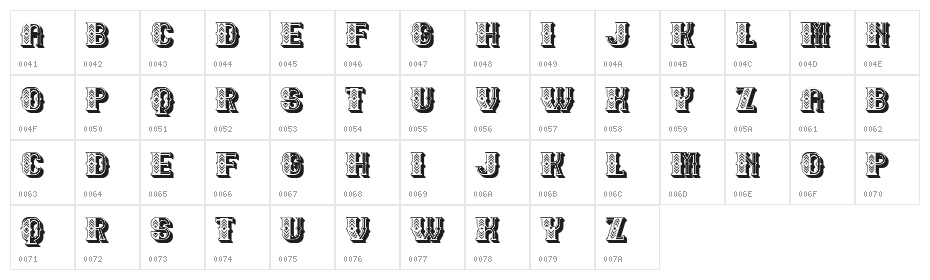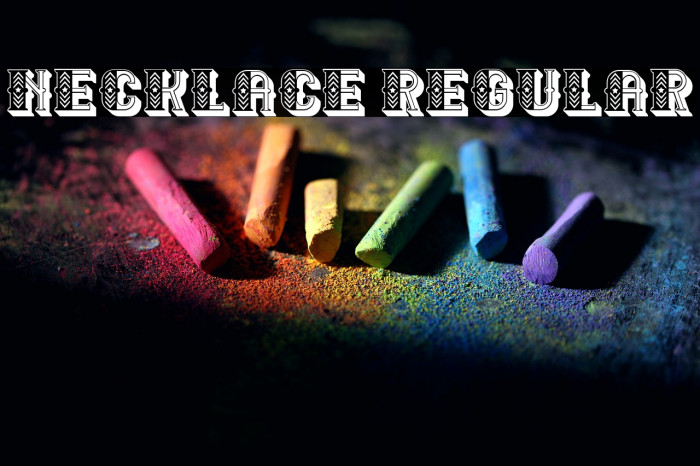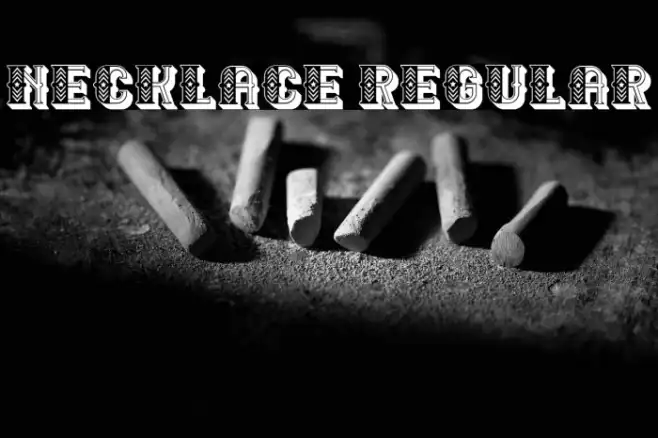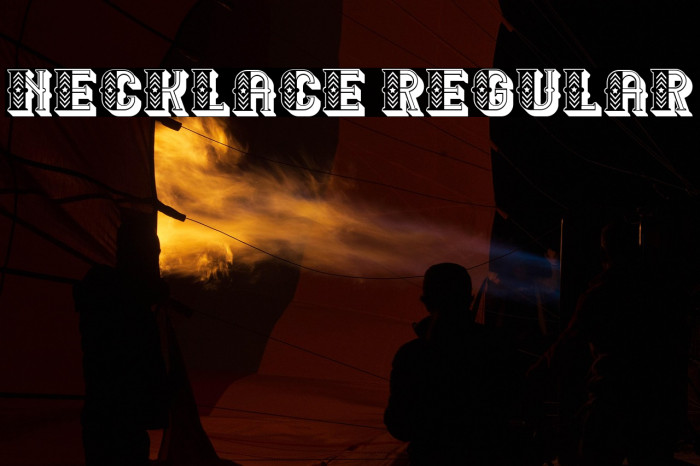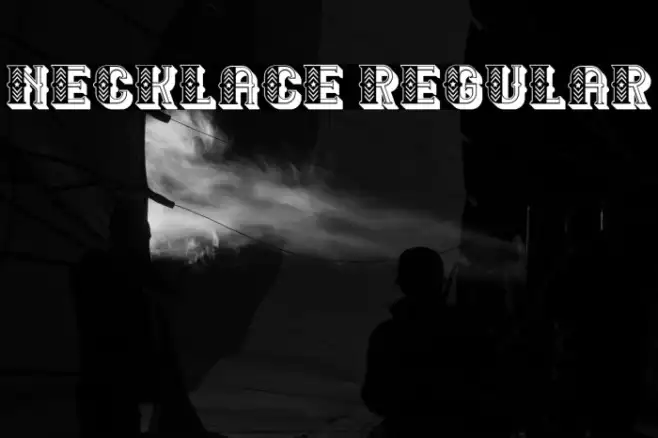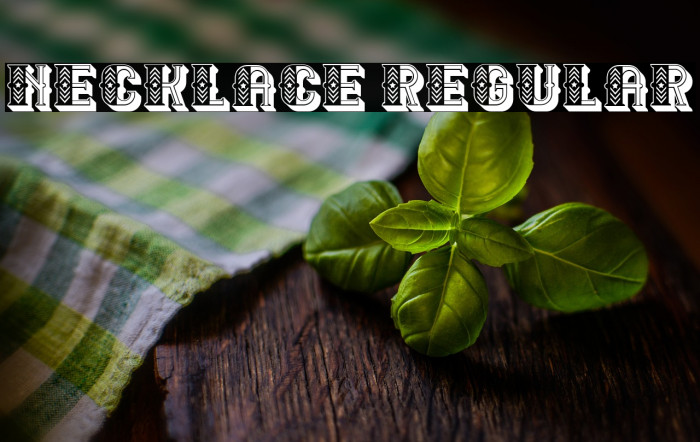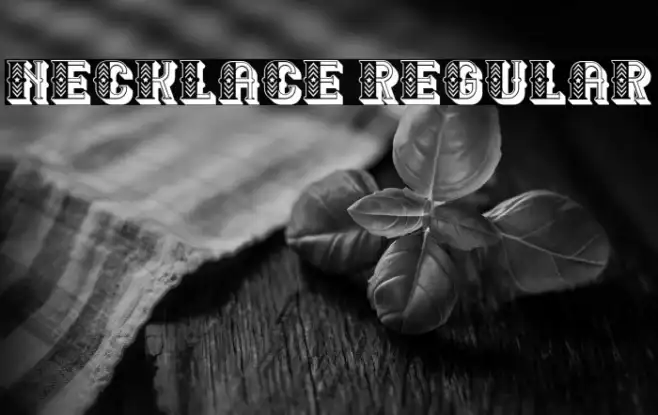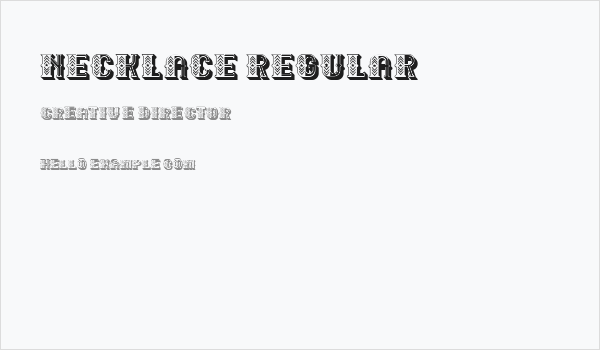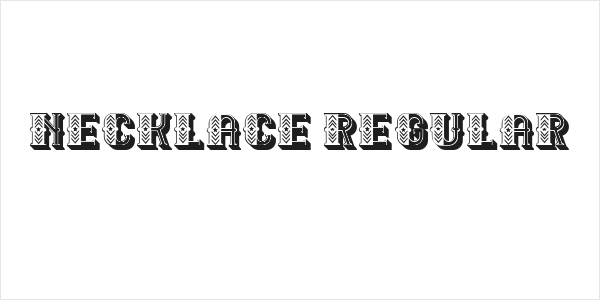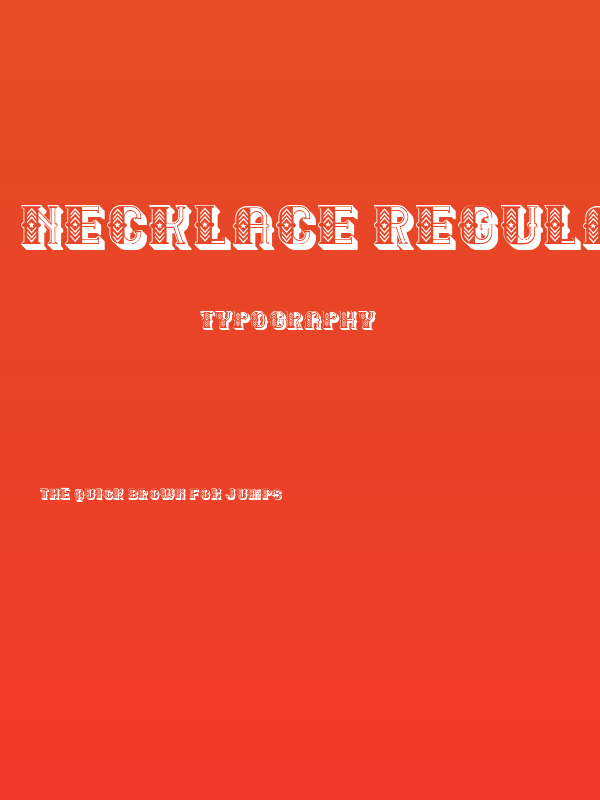
Necklace Regular Font
Necklace Regular Description
This font features a bold, decorative style with intricate patterns within each letterform. The characters are outlined with a thick black shadow, giving them a three-dimensional appearance. The internal design of each letter includes a series of geometric shapes and lines, adding a unique texture and visual interest. The font maintains a consistent height and width across all characters, ensuring uniformity. Its elaborate design makes it stand out, suitable for projects that require a strong visual impact.
| Proposed Projects | Ideal for use in posters, logos, branding materials, and any design that requires a striking and artistic typeface. |